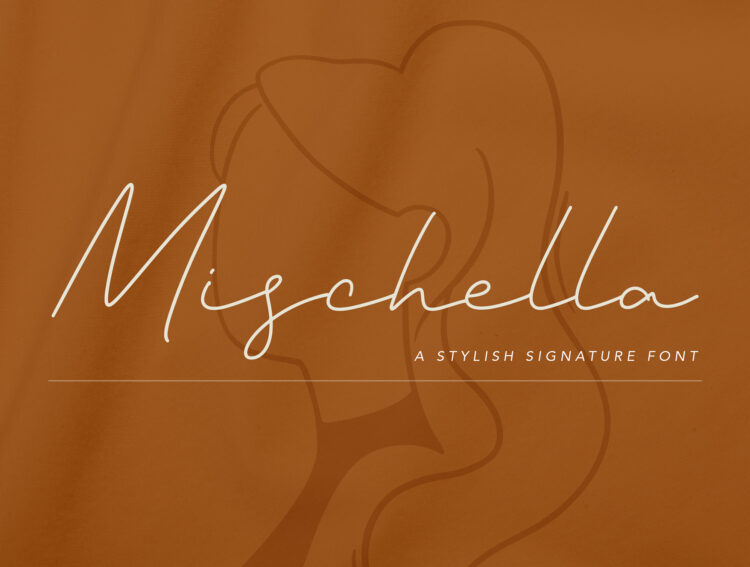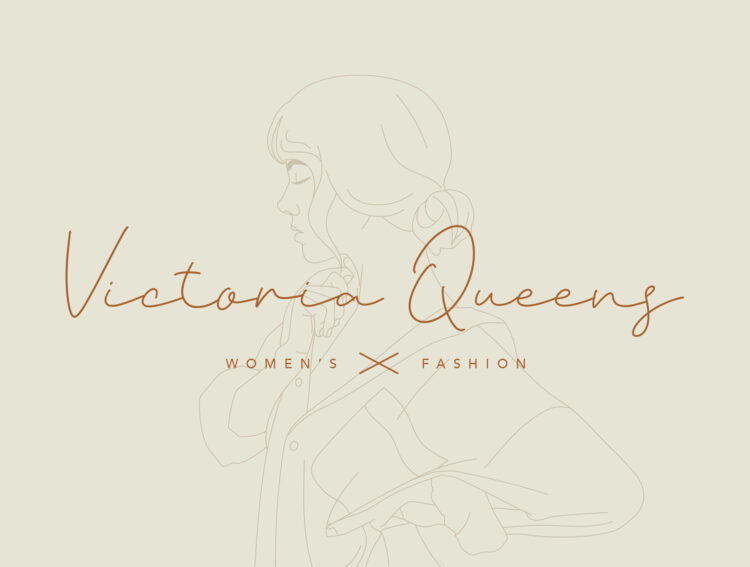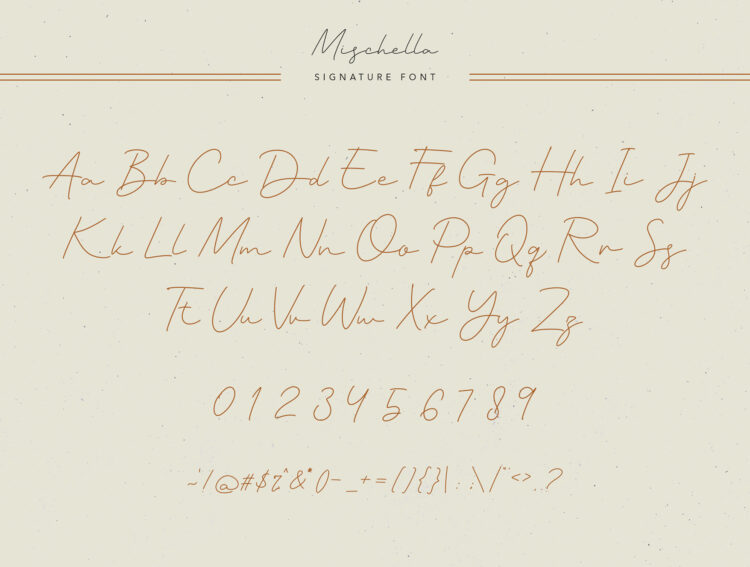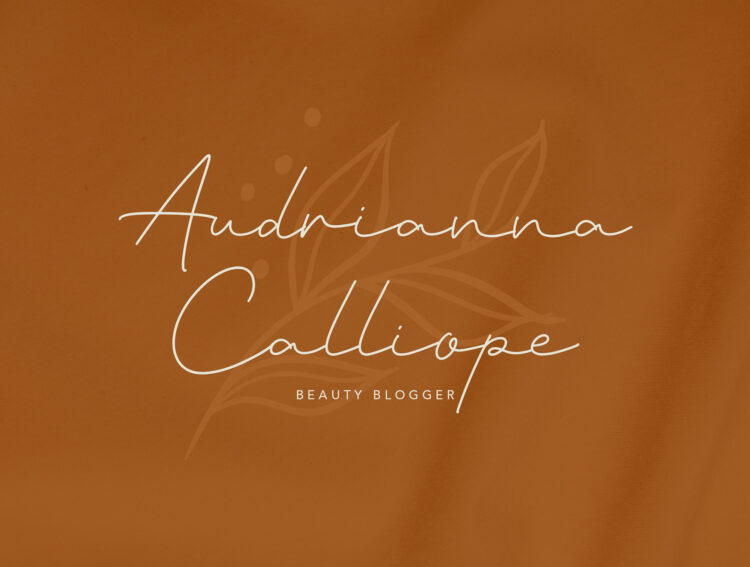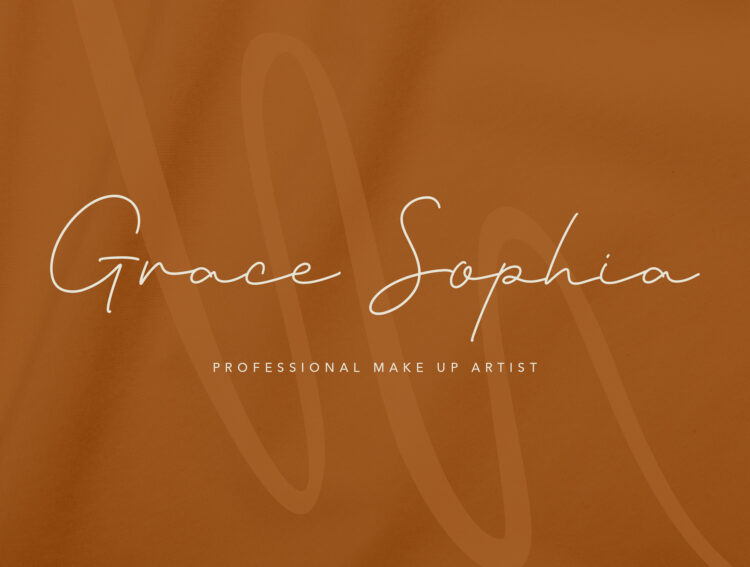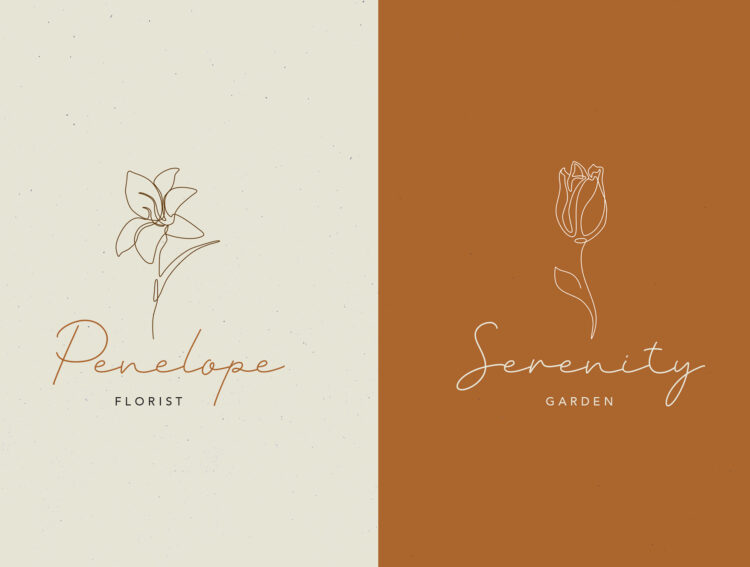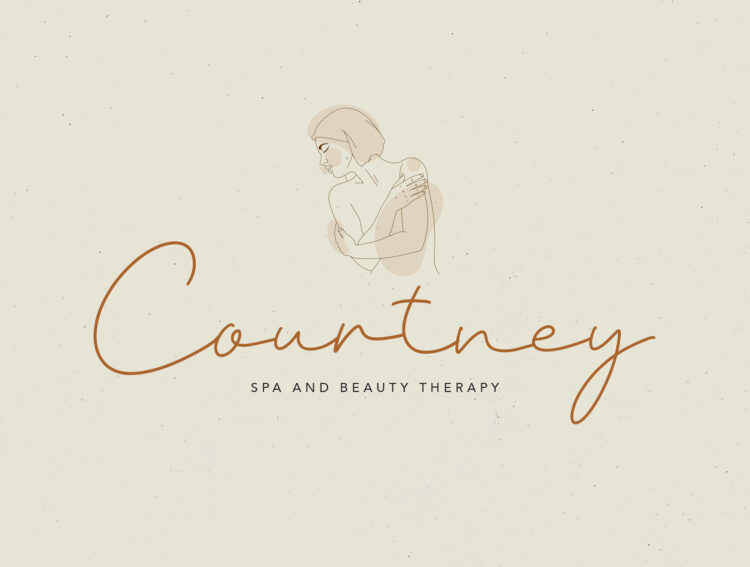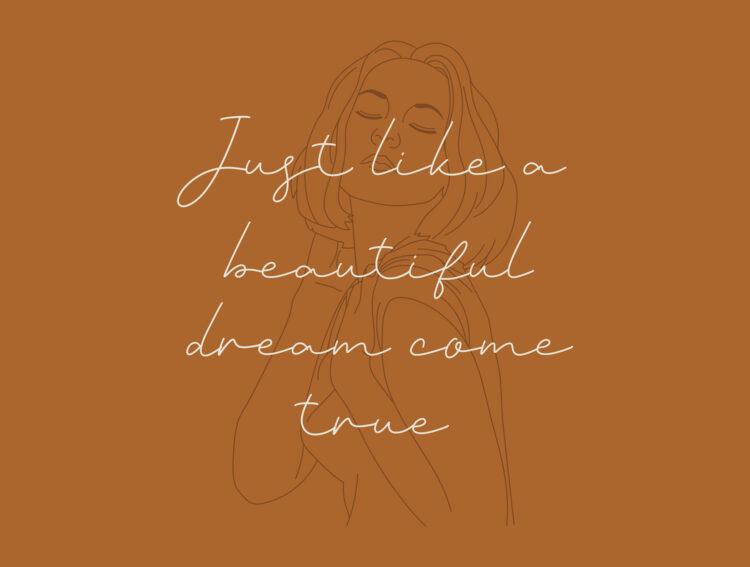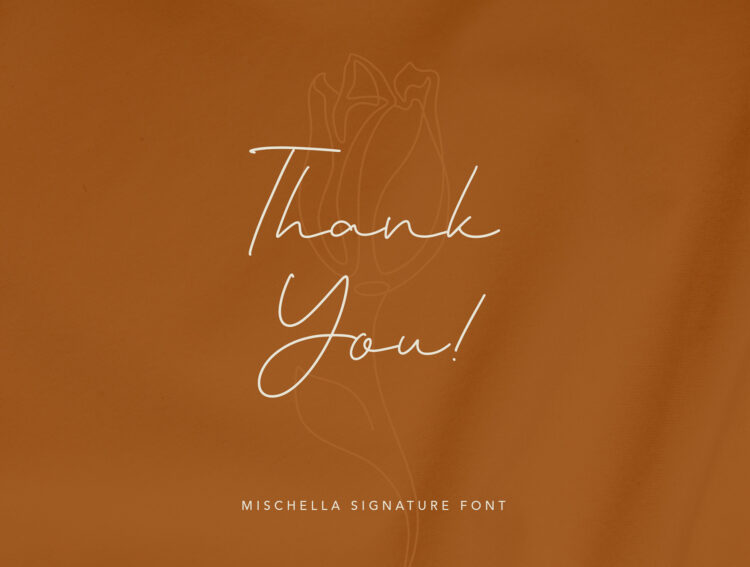
A signature is a significant remarks that will live forever. No need to be grand, simple and minimalist just enough like Mischella, a stylish signature font that has smooth lines, gorgeous glyph and stunning features. Leave your remarkable creation using this font for your own signature, wedding invitation, social media posts, advertisements, photography, fashion, boutique and especially for any feminine and beauty projects.
With its curvy style and design, Mischella will be a suitable overlay for a beautiful background image. It is available in uppercase & lowercase letters; consisted of numbering 0-9 and punctuation that usually need in basic usage font. In OTF format file makes this font easy to install and use in your Mac or Windows PC.
- Uppercase & Lowercase letters
- Numbering
- Punctuation